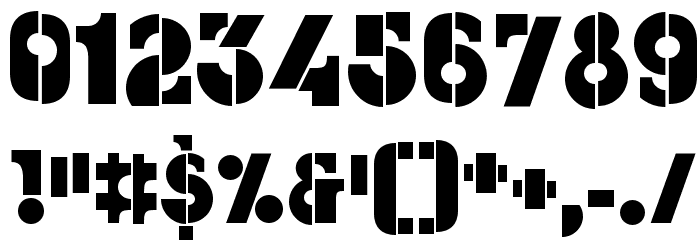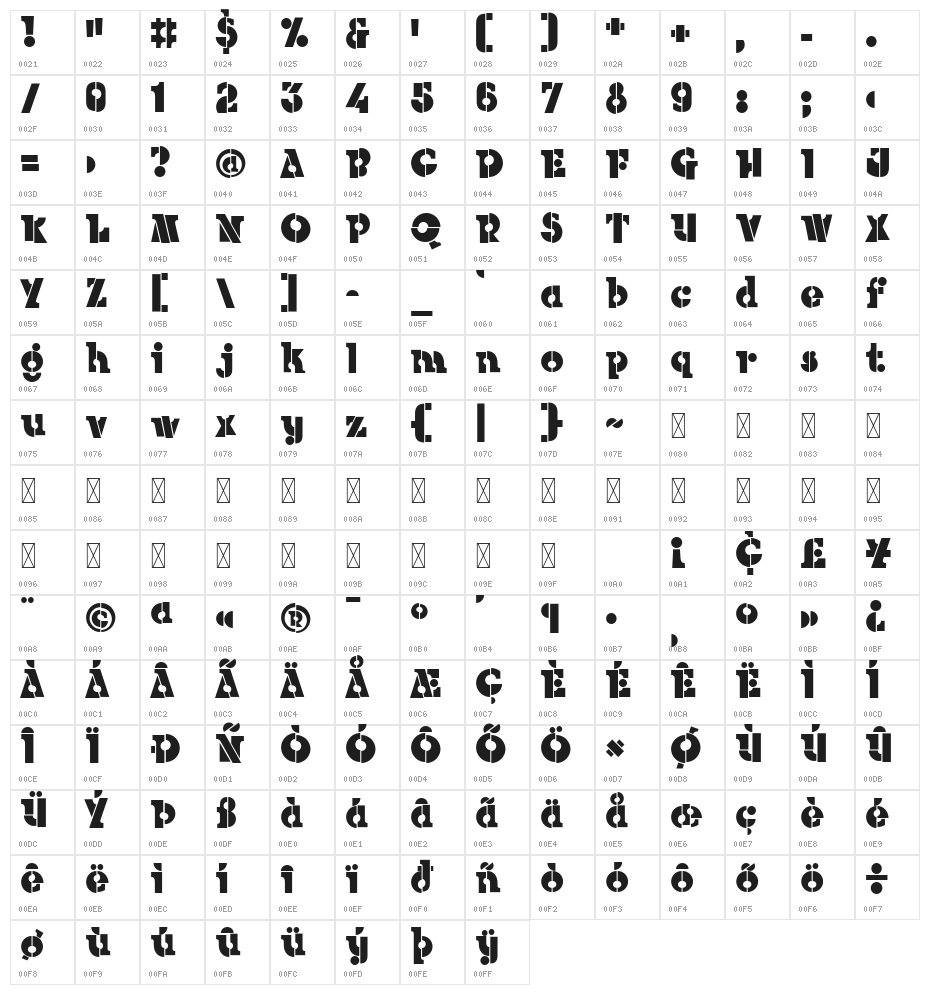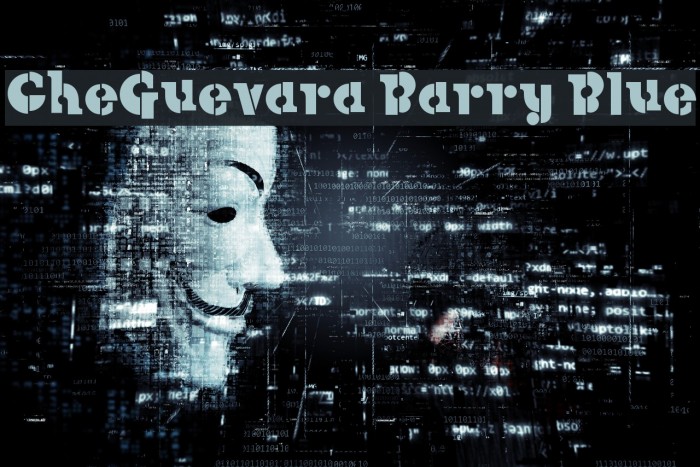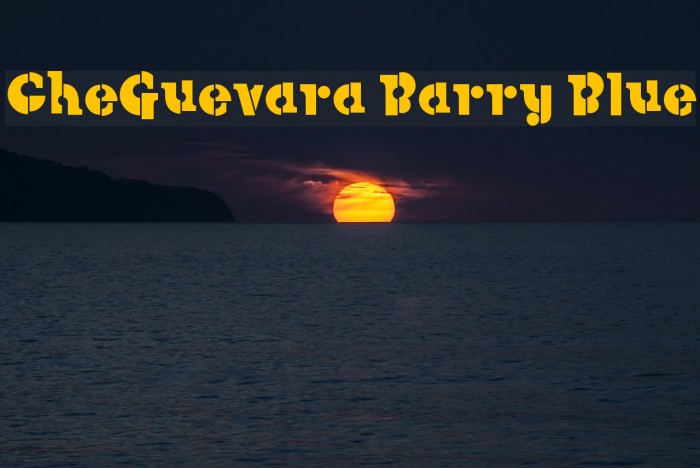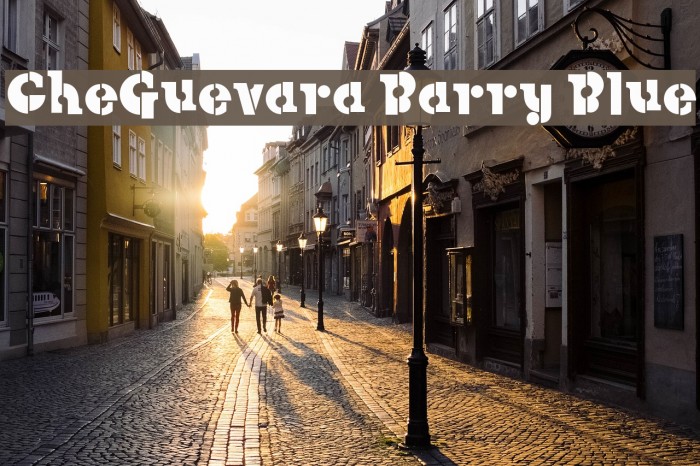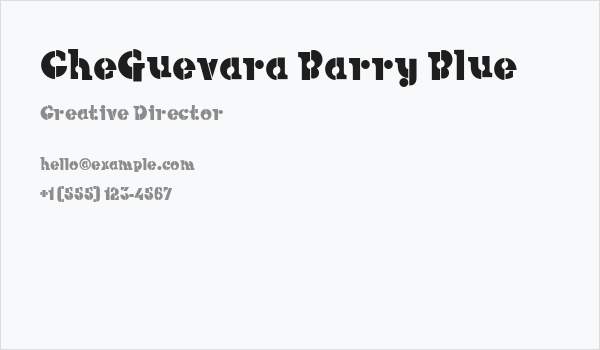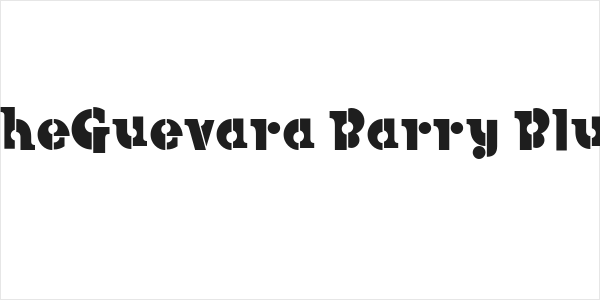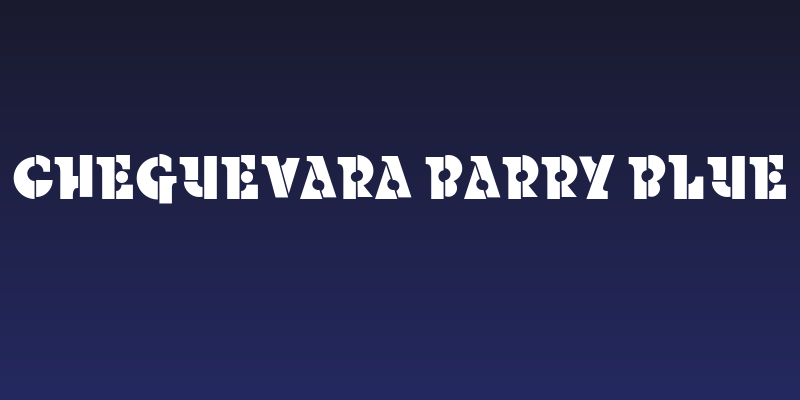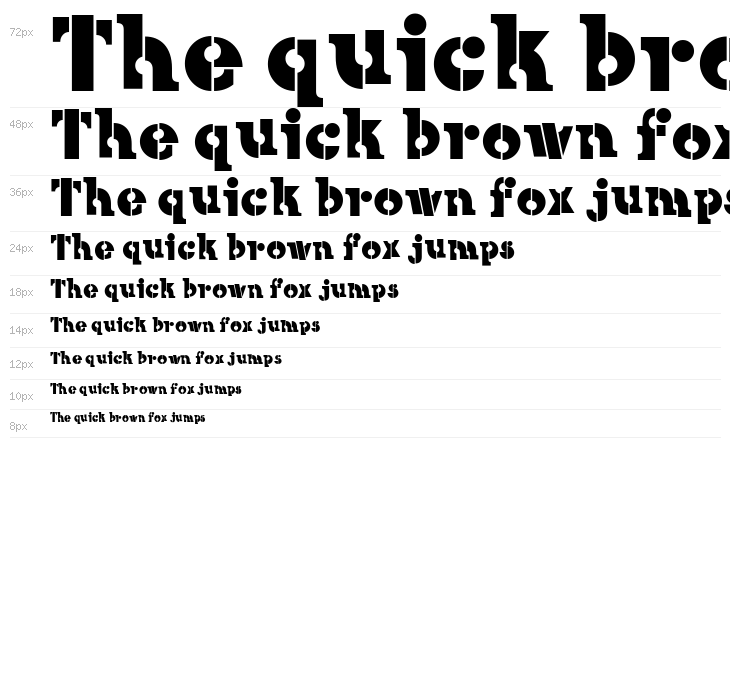
CheGuevara Barry Blue Font
CheGuevara Barry Blue Description
This font features a bold, geometric design with a distinct stencil-like appearance. Each character is crafted with solid, blocky shapes, incorporating unique cutouts that add a modern and industrial feel. The uppercase and lowercase letters maintain a consistent style, with sharp angles and clean lines. Numbers and special characters follow the same aesthetic, ensuring a cohesive look across all text. The font's boldness and unique design make it highly eye-catching, suitable for projects that require a strong visual impact.
| Proposed Projects | Ideal for posters, logos, branding, and any design requiring a striking, modern look. |